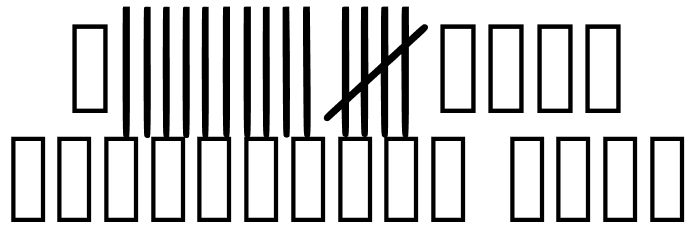
Tally Marks Regular Font
Tally Marks Regular Description
This font is characterized by its unique representation of characters as tally marks, creating a distinctive and unconventional style. Each letter and number is depicted using vertical lines, with every fifth line crossing through the previous four, mimicking the traditional tally mark counting method. This design gives the font a minimalist and abstract appearance, making it stand out for creative and artistic projects. The uniformity of the lines provides a consistent visual rhythm, while the simplicity of the design ensures clarity and readability. The font's playful yet structured nature makes it suitable for projects that require a modern and innovative touch.
A unique font using tally marks to represent characters, offering a minimalist and abstract style from Uncategorized fonts.
- Proposed Projects: Ideal for creative designs, artistic projects, modern branding, and innovative advertising campaigns.
- Use Case: Logos, Posters, Creative Designs